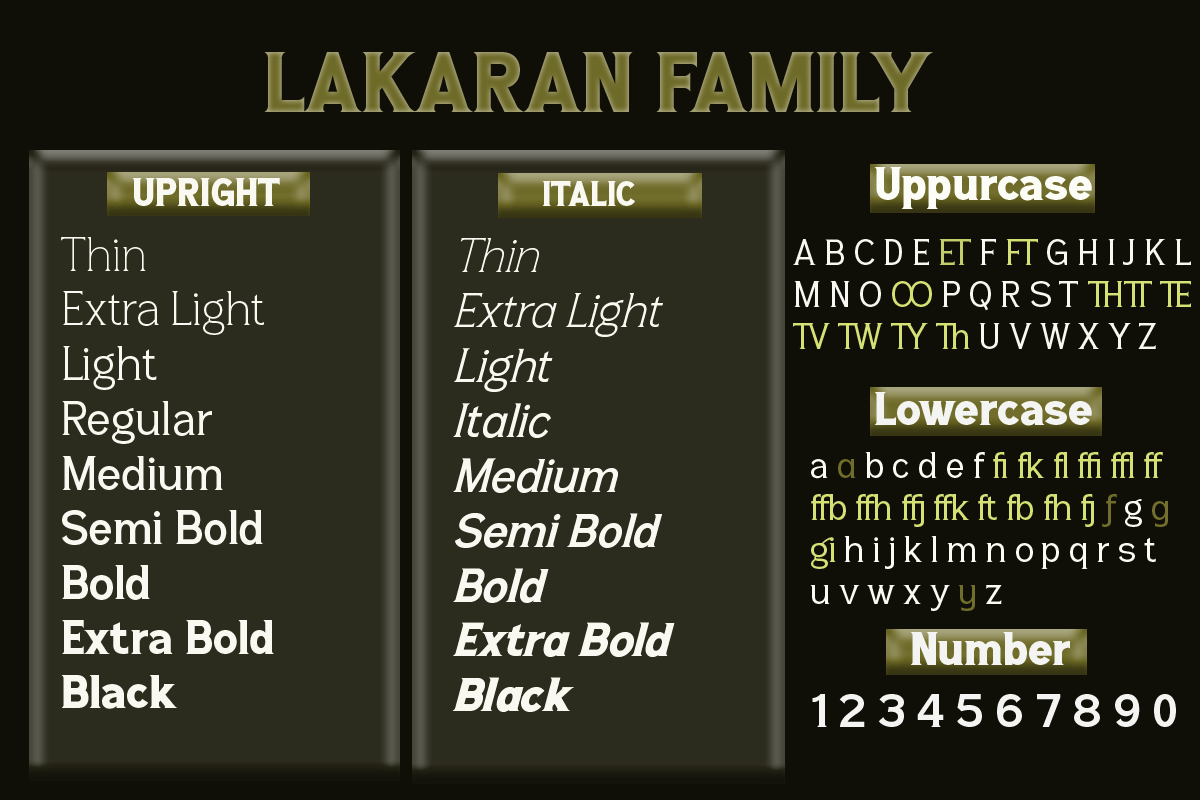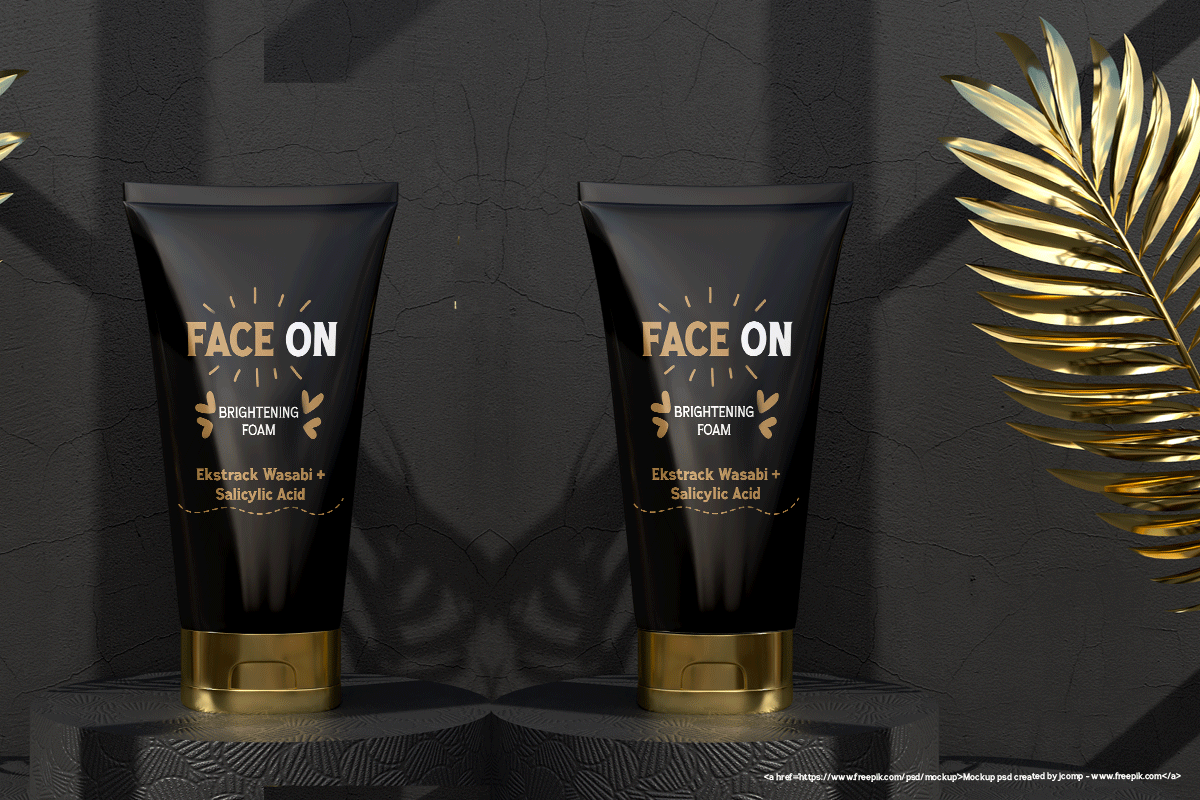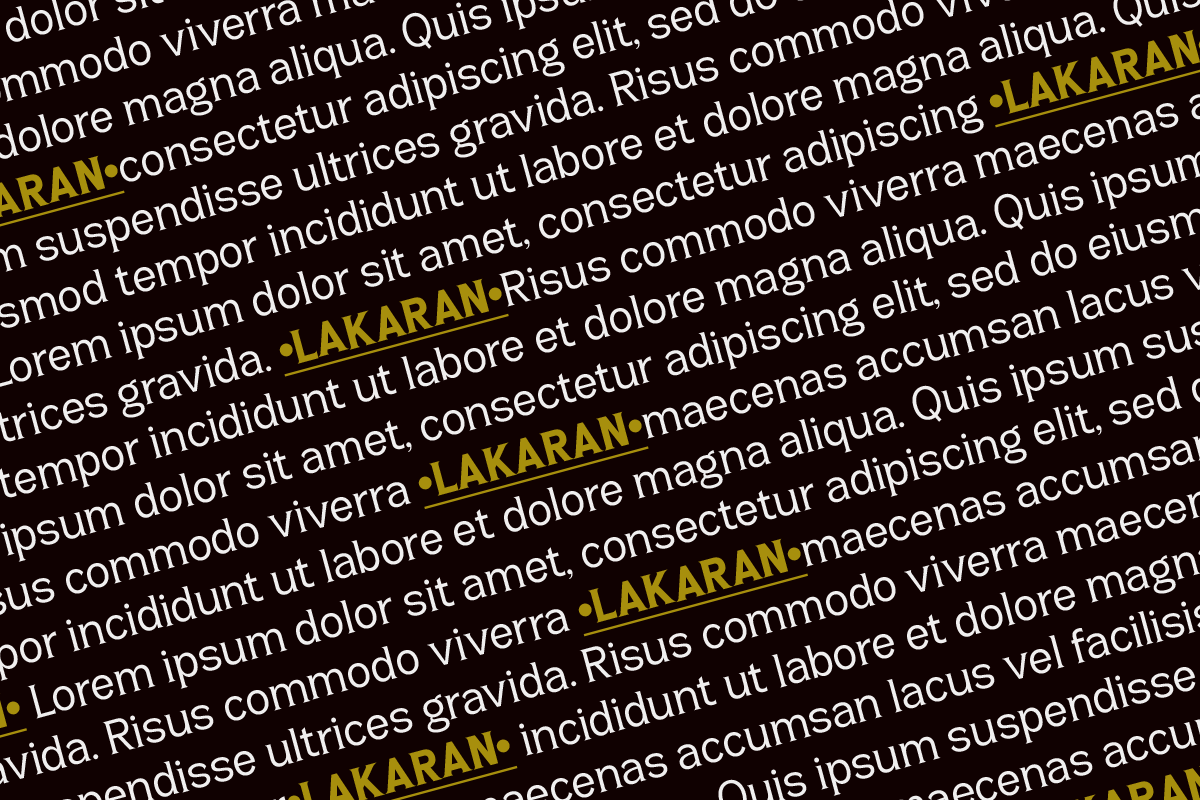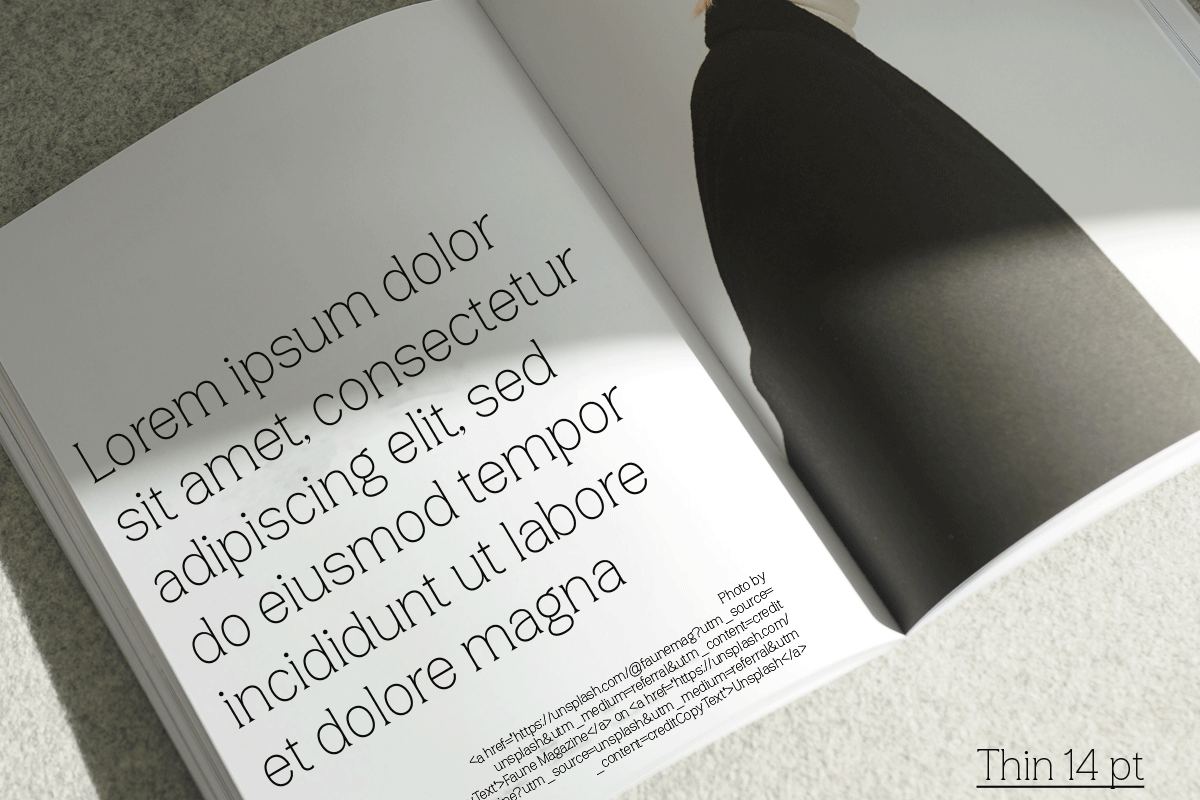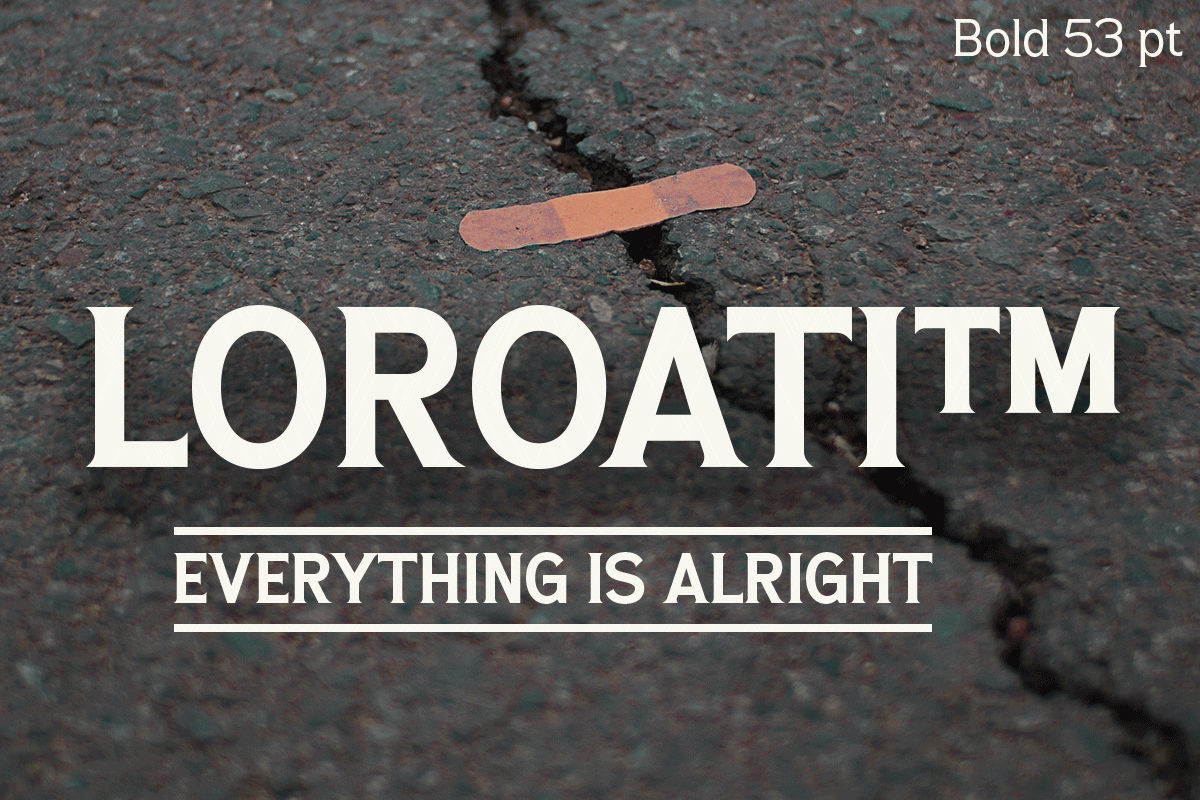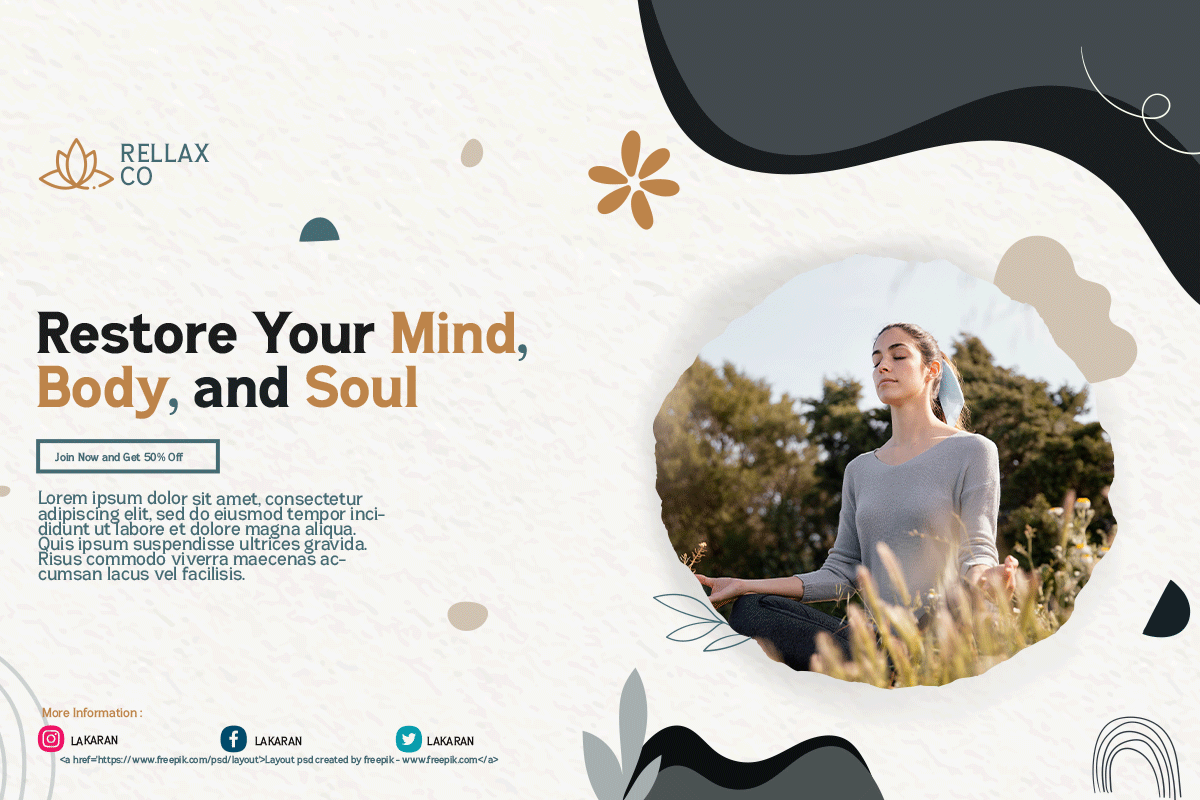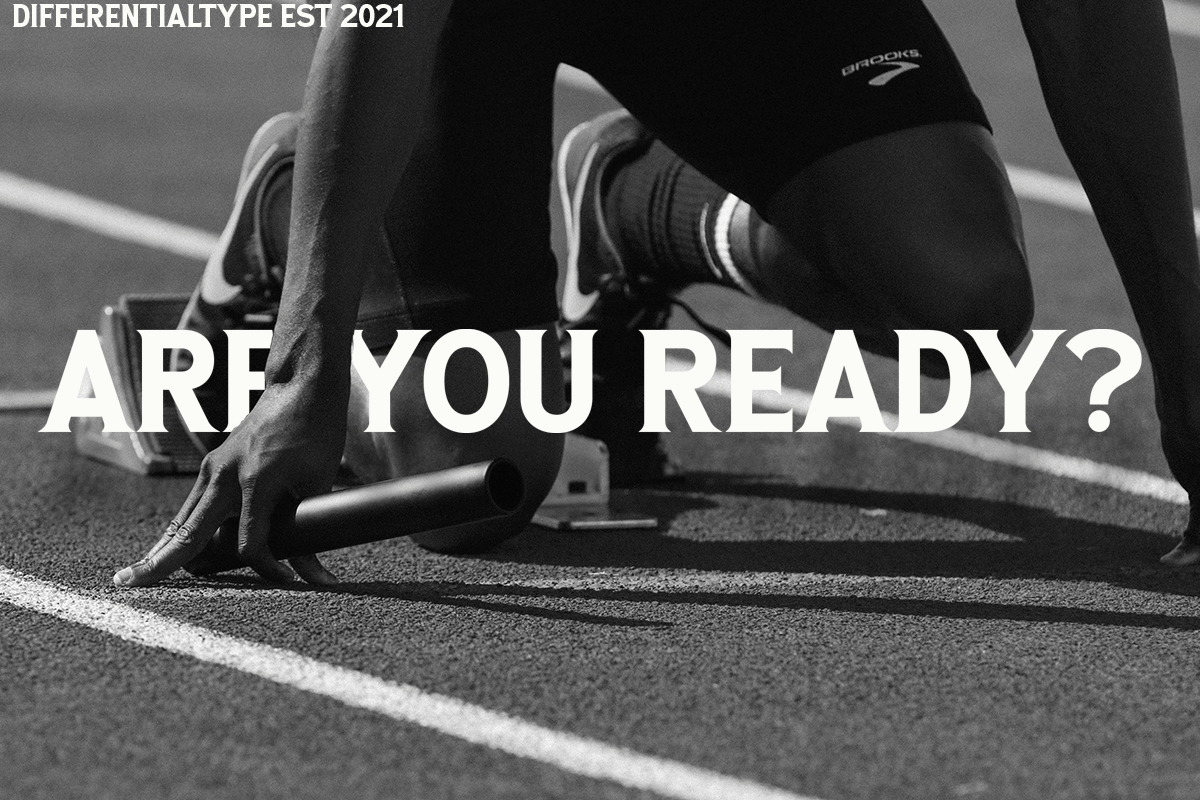
Lakaran
Lakaran is a serif font family that comes in many styles to suit all crafty needs. It is perfect for word documents, logo marks, editorial designs, branding projects, packaging, magazine titles, advertisements, and more.